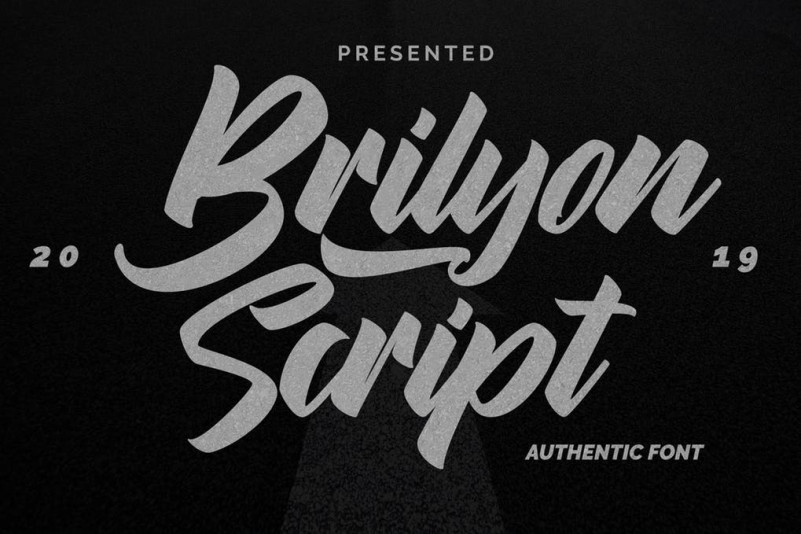
Brylion Unique Authentic Font
Brylion Script | Unique Authentic Font with a calligraphy style, So beautiful on invitation like greeting cards, branding materials, business cards, quotes, posters, and more!